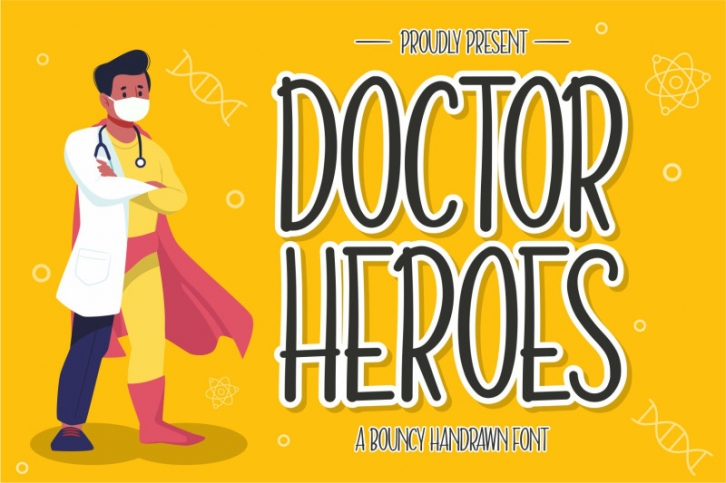
Doctor Heroes embodies fun, quirkiness and authenticity. Clean and a little bit quirky, this display font is the perfect fit for all of your logos, branding, social media, and crafty DIY projects.